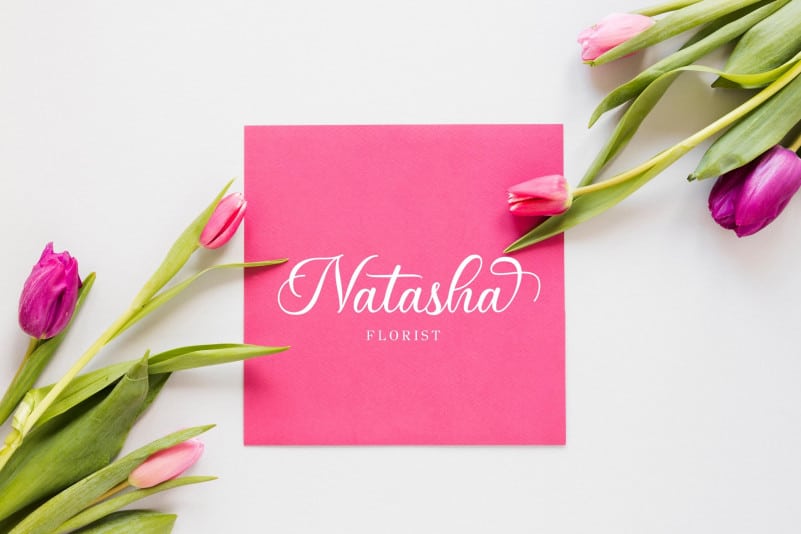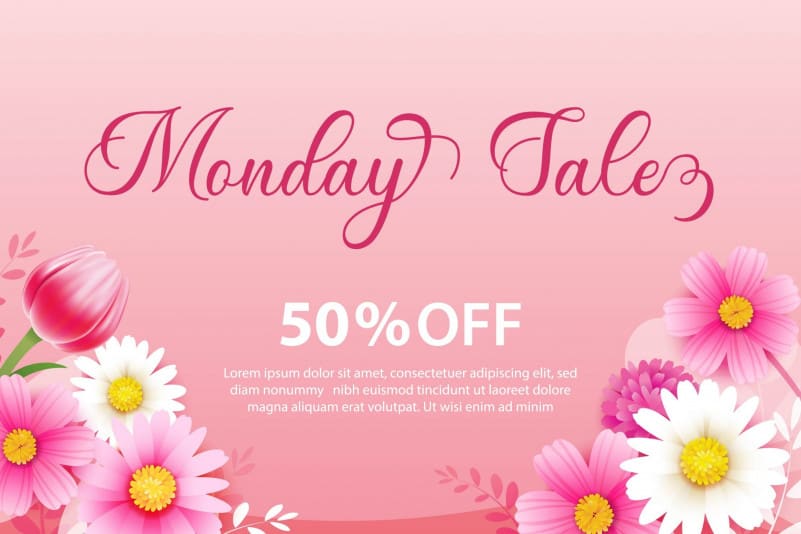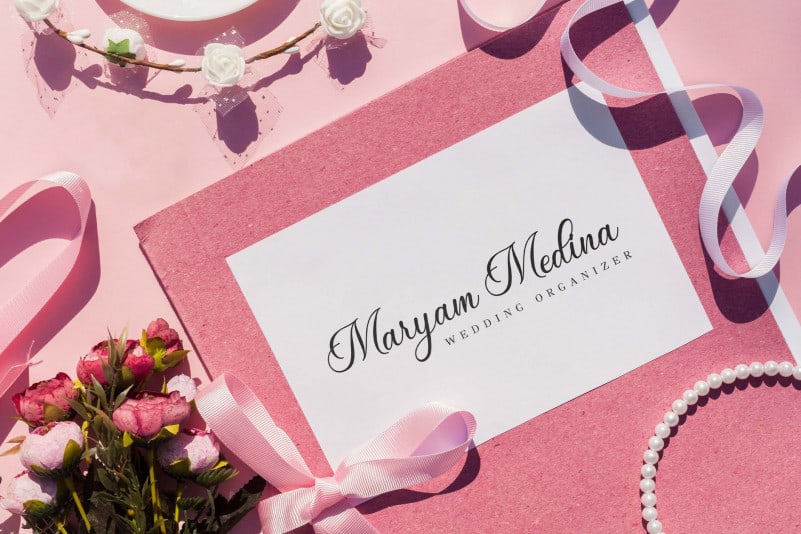
Wonderful Day Calligraphy Font feels equally charming and elegant with a natural handwritten feel. This font is designed and shared by Almarkhatype Studio. It has sweety swash that are perfect for any creative design. This handmade font will make your design has a beautiful natural touch for each details. It is perfect for any design project as Invitation,logo, book cover, craft or any design purposes.
Wonderful Day